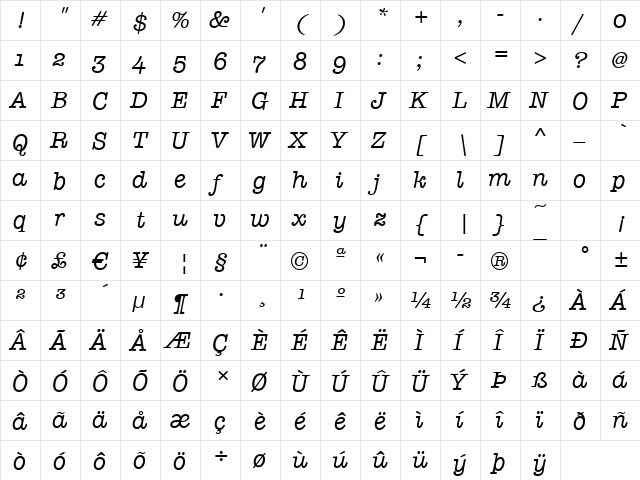
Typewriter-Osf Italic
Design Context for Typewriter-Osf Typeface
Typewriter-Osf brings the precise, column-aligned rhythm of monospaced typography to designs that value technical clarity and systematic order. The slanted form adds forward momentum and visual energy.
Pro Tip: Use Typewriter-Osf with slightly increased line-height for extended reading — fixed-width spacing can feel dense in longer passages without extra breathing room.